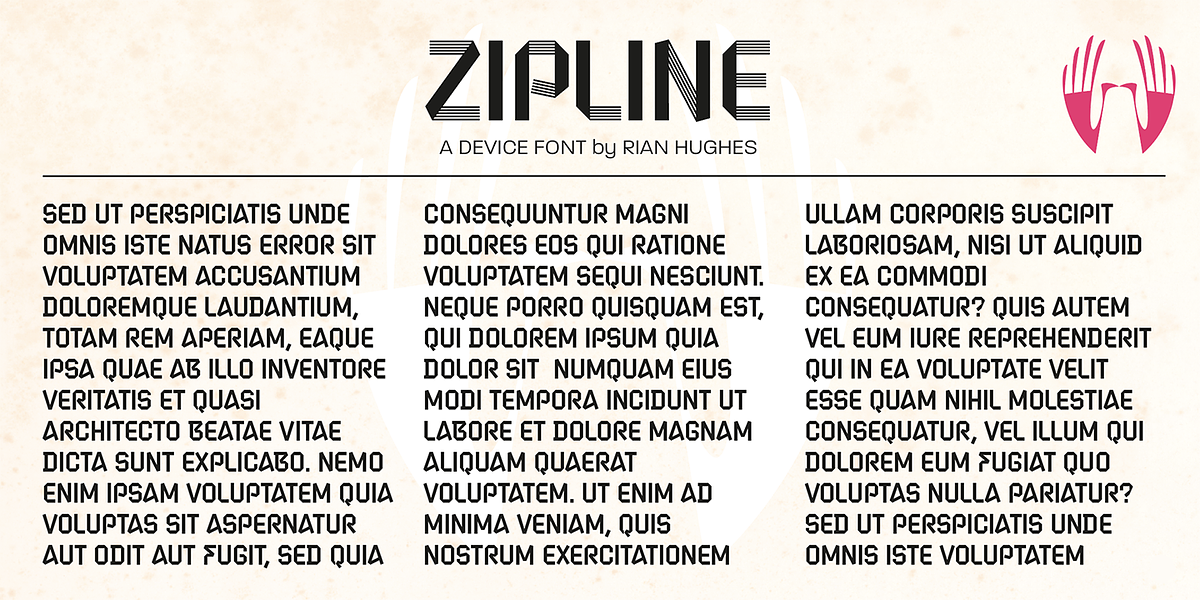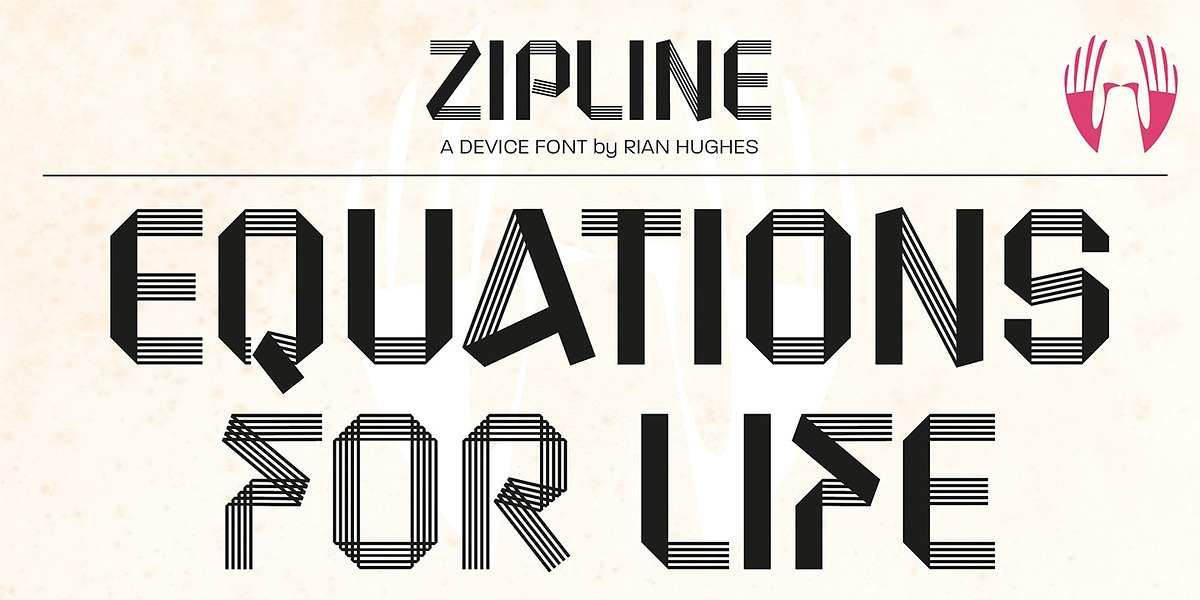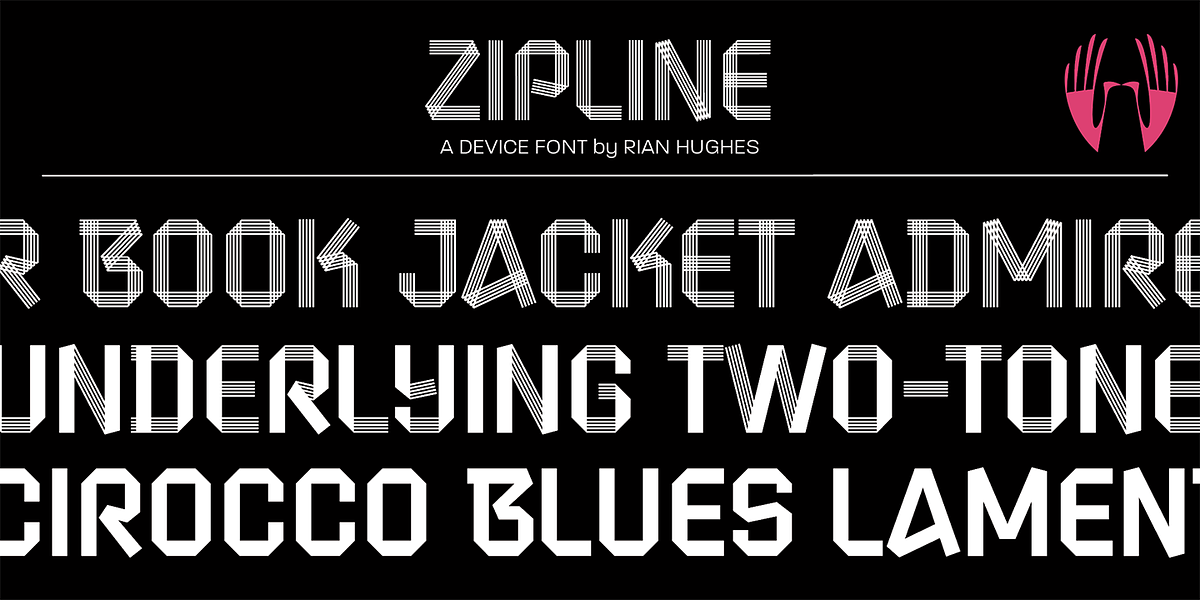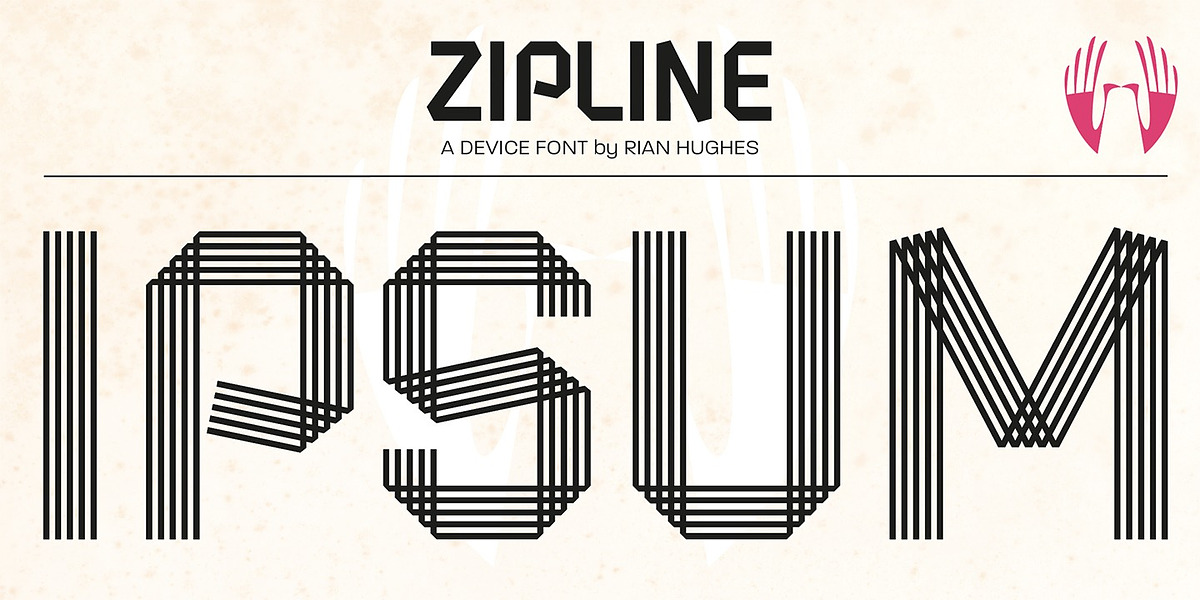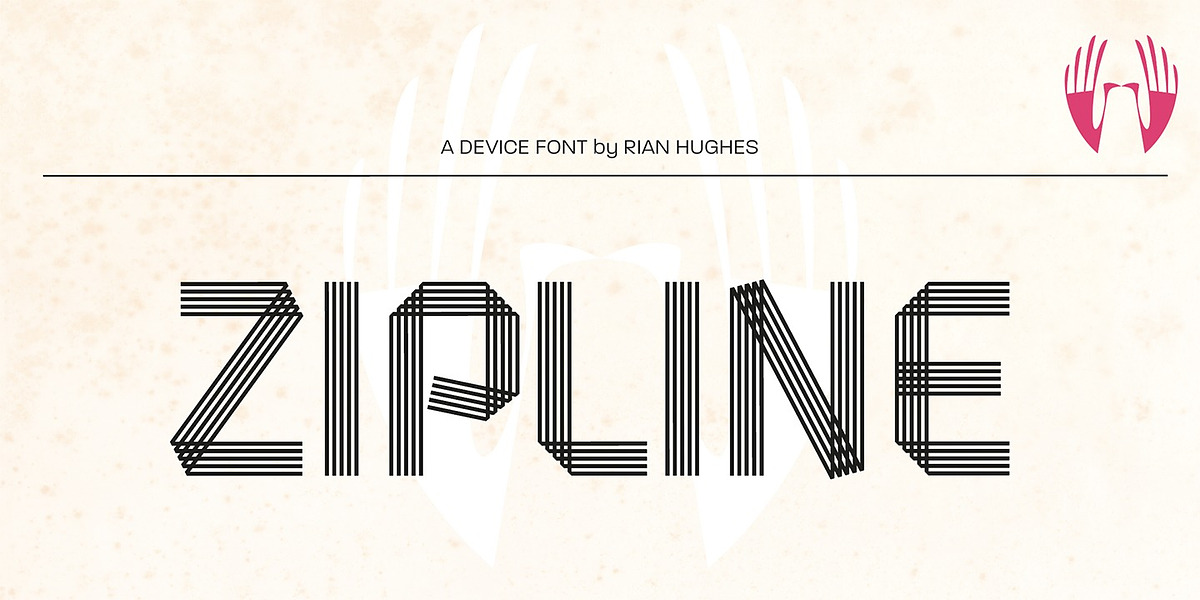
Zipline
Zipline is a geometric sans-serif typeface characterized by its angular and multilinear forms. The font's unique design features three distinct variants: a solid version, a decorative lined version, and a half-solid version. These variants can be freely mixed to create interesting visual effects. Zipline is most effective when used in short words or phrases at larger sizes, allowing the viewer to appreciate the intricate details of its construction.